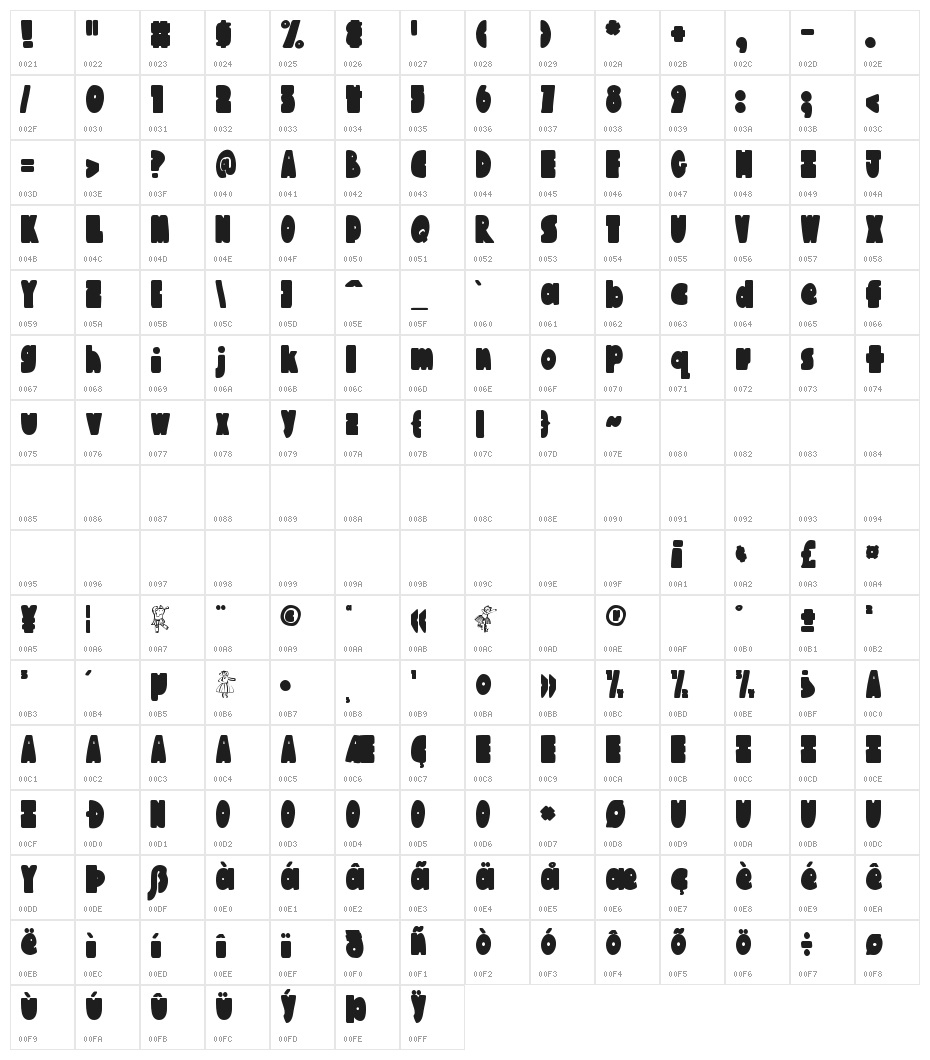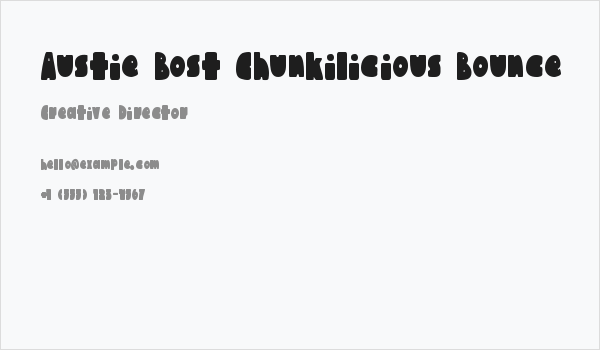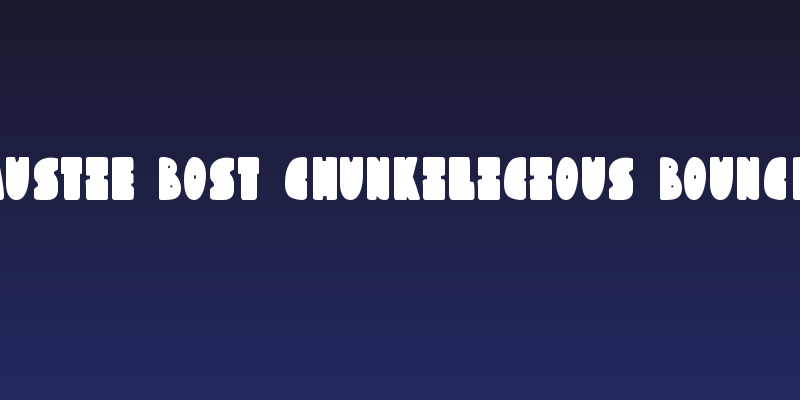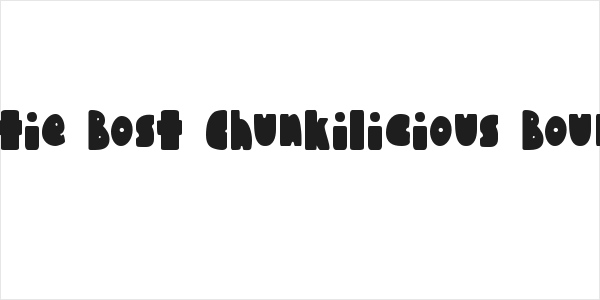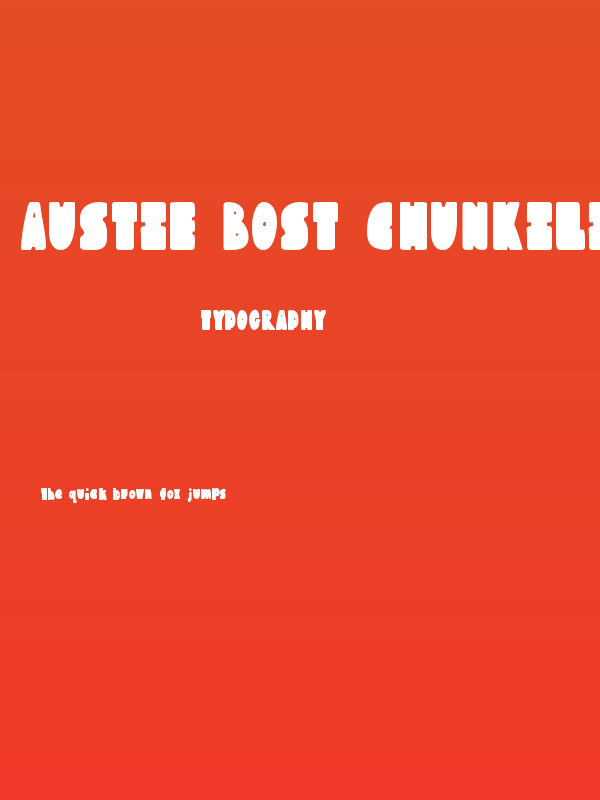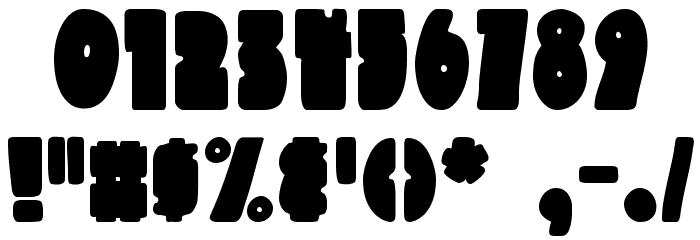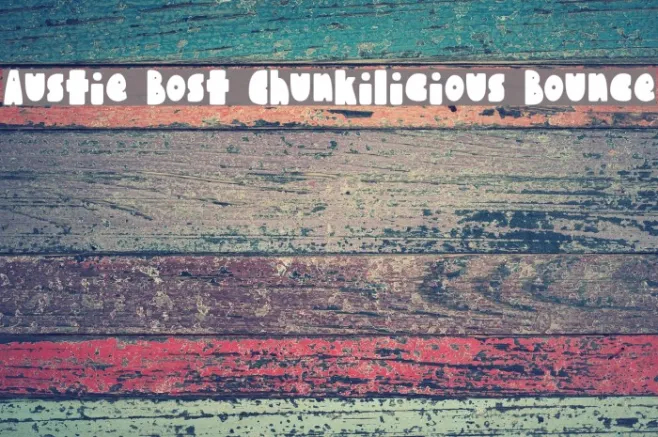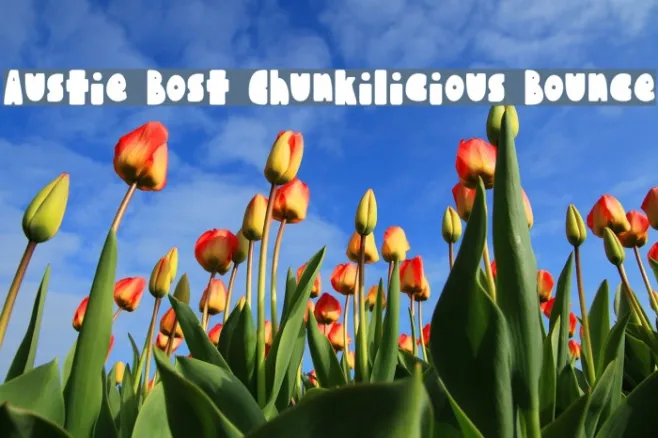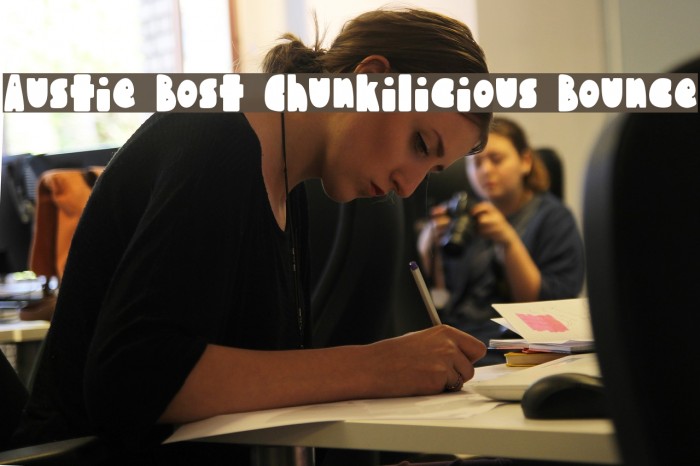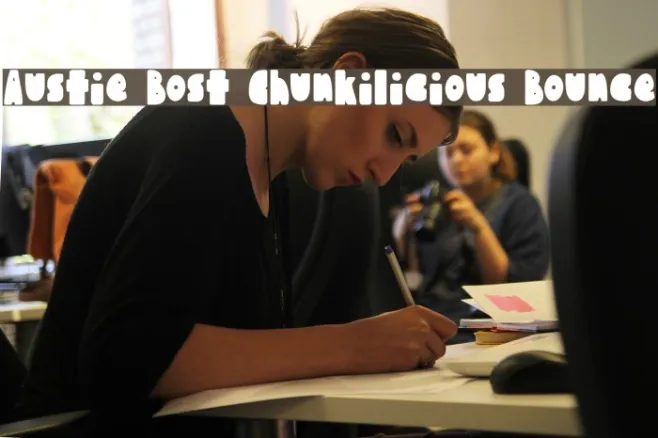
Austie Bost Chunkilicious Bounce Font
Austie Bost Chunkilicious Bounce Description
This playful and bold font features a chunky, bouncy style that exudes a sense of fun and whimsy. The letters are thick and rounded, with a slightly uneven baseline that adds to its lively character. Each character is designed with a sense of movement, making it ideal for projects that require a touch of humor and creativity. The font includes a full set of uppercase and lowercase letters, numbers, and a variety of special characters, all maintaining the same energetic and robust design. Its unique style makes it stand out, perfect for eye-catching headlines or playful branding.
| Overall Style | Playful, Fun, Energetic |
| Proposed Projects | Ideal for children's books, playful branding, party invitations, and creative posters. |